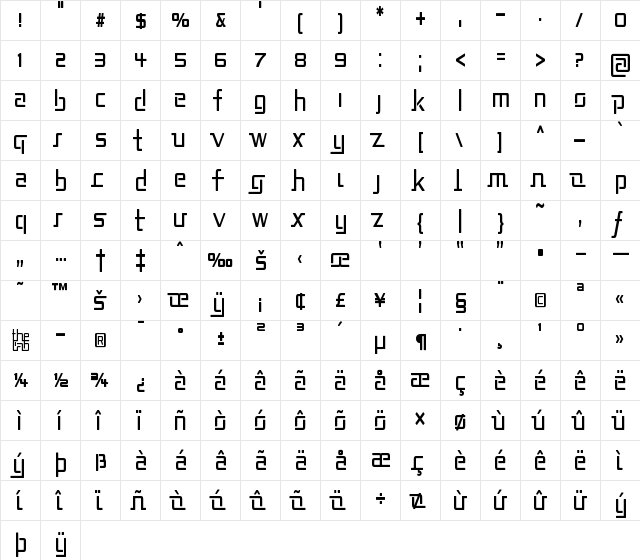
Republika II Cnd Regular
Design Context for Republika II Cnd Typeface
Republika II Cnd offers clean, dependable letterforms without strong stylistic allegiance, making it a practical choice for designers who need flexibility.